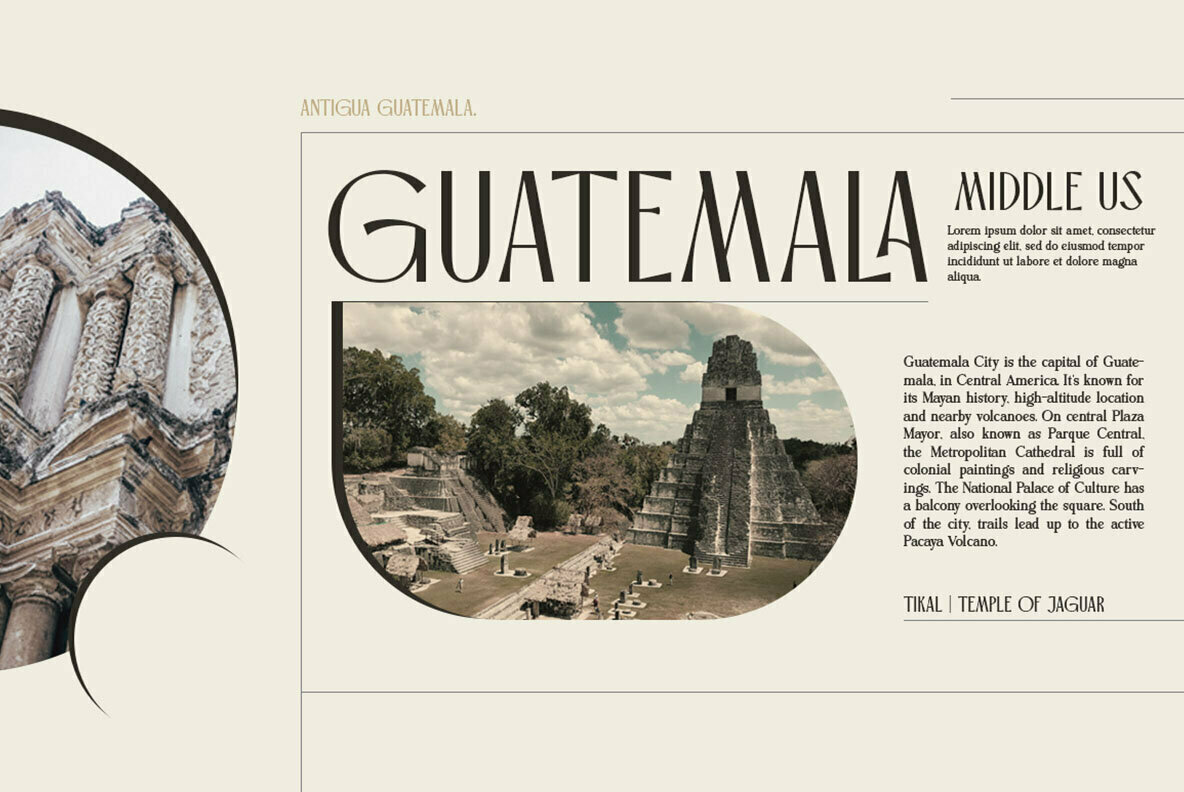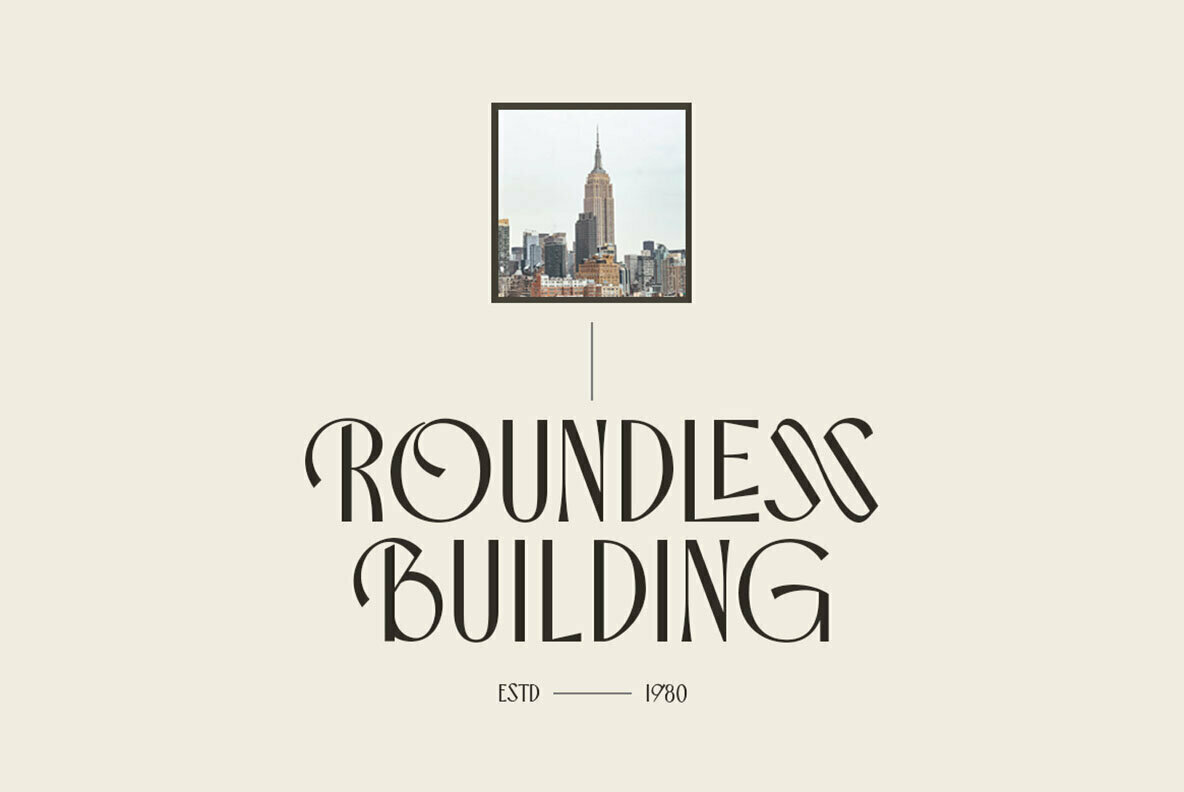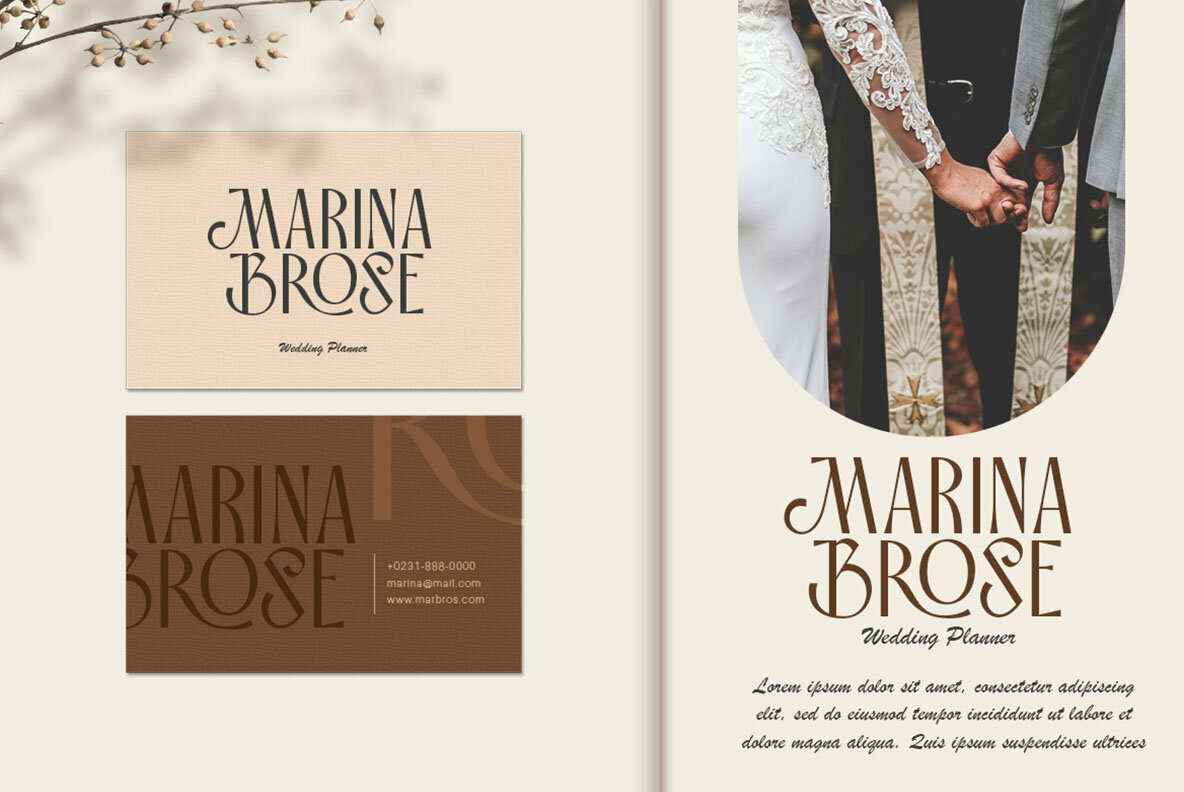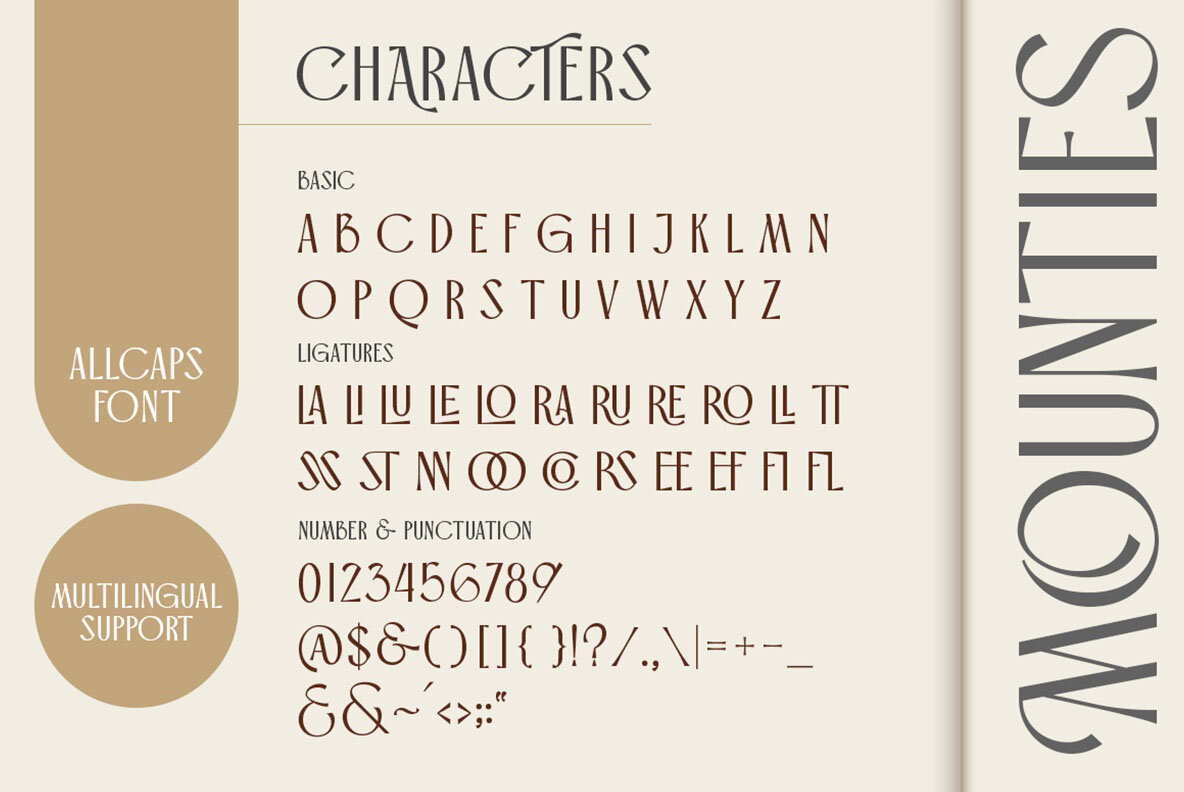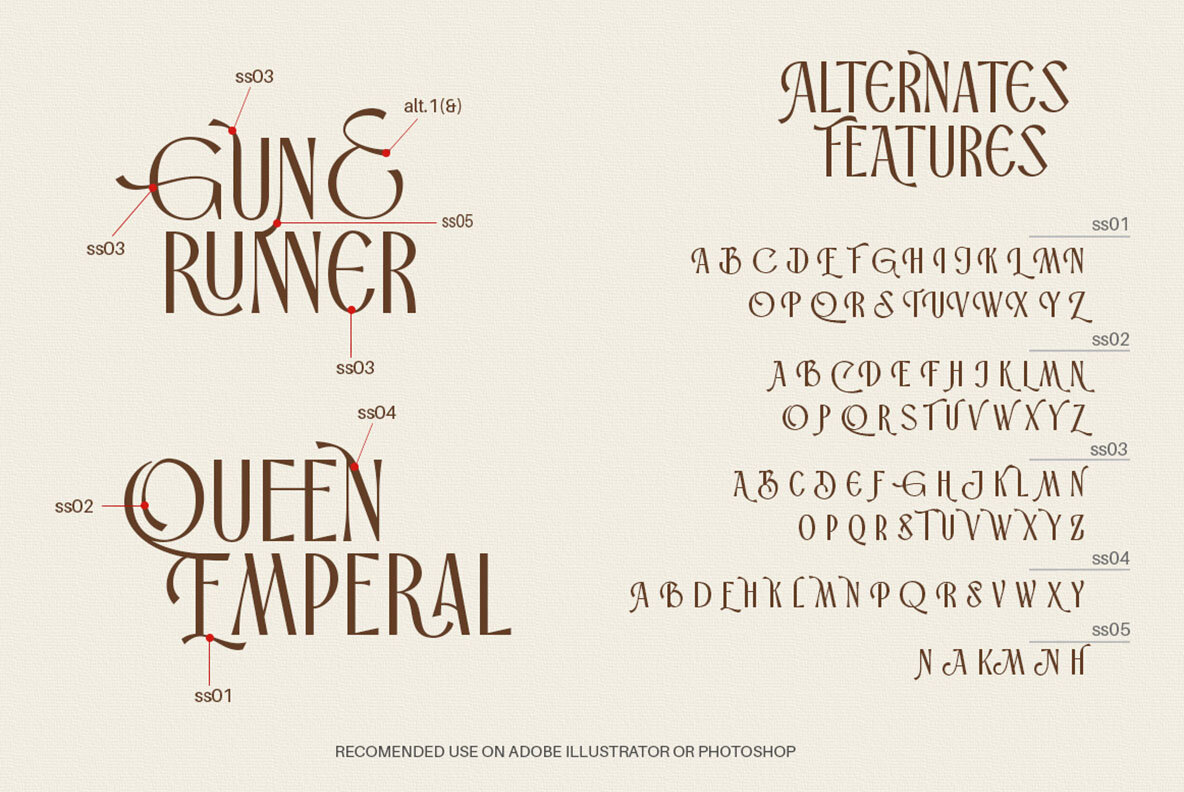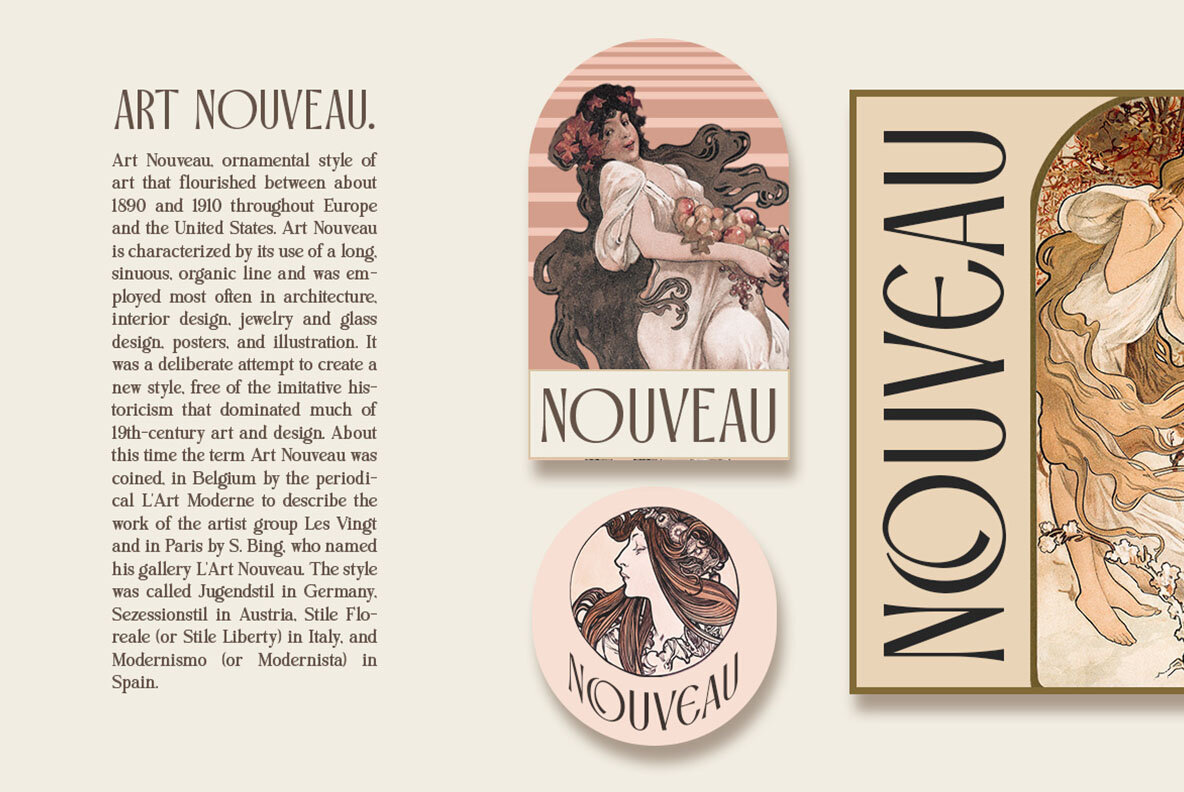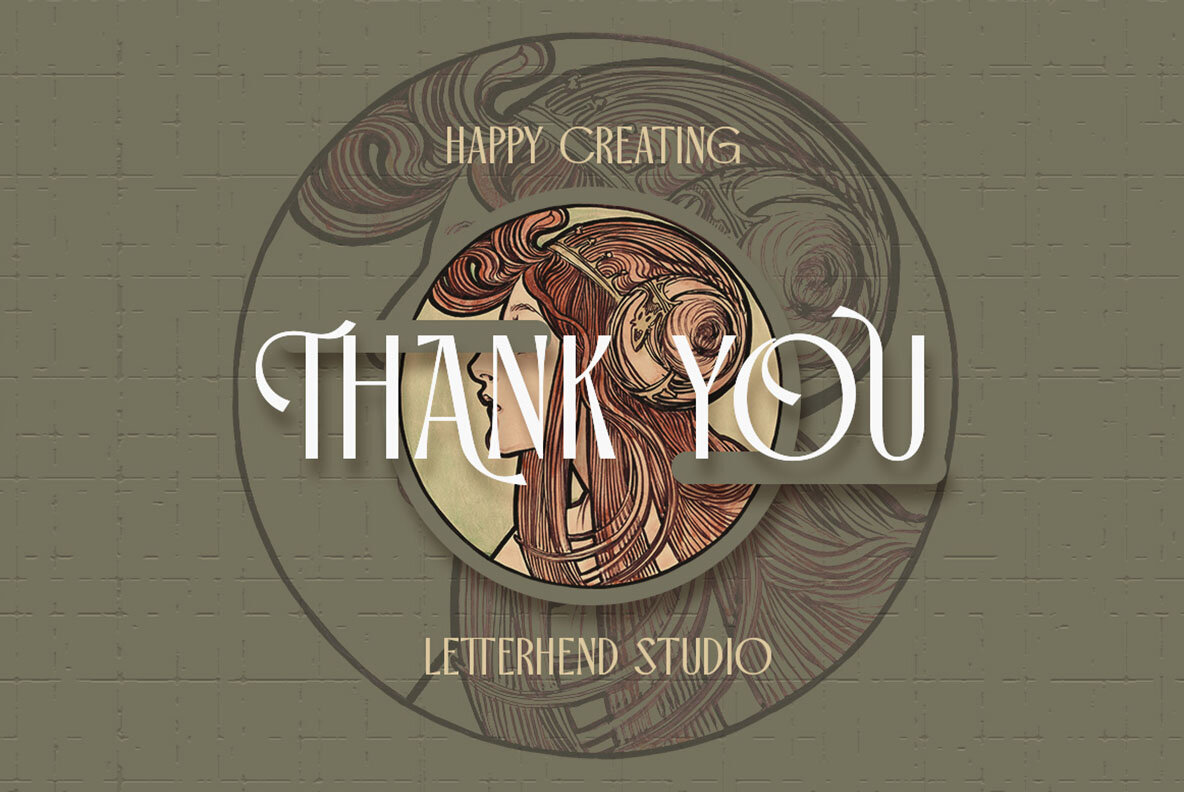
MOUNTIES Font
Mounties Regular
Mounties by Letterhend Studio offers a unique fusion of modern style and functionality. This display sans serif boasts a neat, sleek letterform, perfectly suited for contemporary, minimalistic designs. With its stylistic alternates and ligatures, it brings an element of uniqueness that stands out in any creative project. Whether you're designing logos, formal invitations, or packaging, Mounties adapts beautifully. Its versatility spans across various applications—from elegant magazines and books to chic greeting cards and advertising materials. For optimal use, we recommend applications like Adobe apps or CorelDraw, where OpenType features and Glyphs panels bring out Mounties' full potential.Mounties: Sleek Display Sans Serif